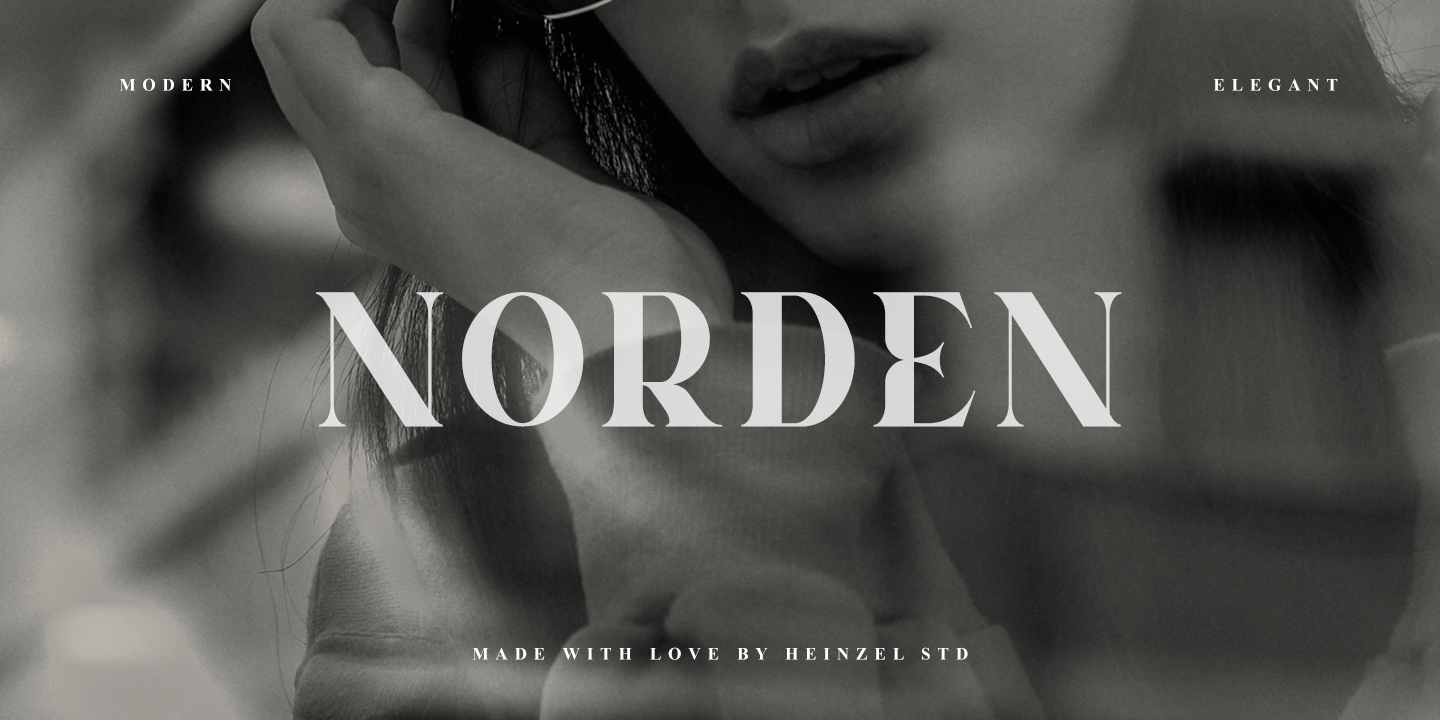
Norden Font Free Download – A crisp, minimalist Scandinavian-inspired typeface that blends Nordic functionality with elegant simplicity. Commercial use requires licensing, but you can download the free version to bring clean Nordic aesthetics to your personal projects.
Where Can You Use Norden Font?
This versatile font excels in:
Modern Scandinavian design (home decor, furniture branding)
Lifestyle blogs & magazines (clean, readable editorial layouts)
Eco-friendly packaging (sustainable product labels)
Tech & startup branding (minimalist digital interfaces)
Why Is Norden Font Exciting?
Norden embodies Scandinavian design principles with:
Optimized negative space for perfect readability
Subtle rounded corners that soften without losing clarity
Mathematical precision in every character
Multi-language support including Nordic characters
Norden Font Family
The complete Nordic collection includes:
Norden Light (airy and delicate)
Norden Regular (perfect everyday balance)
Norden Medium (slightly bolder presence)
Norden Bold (strong headlines)